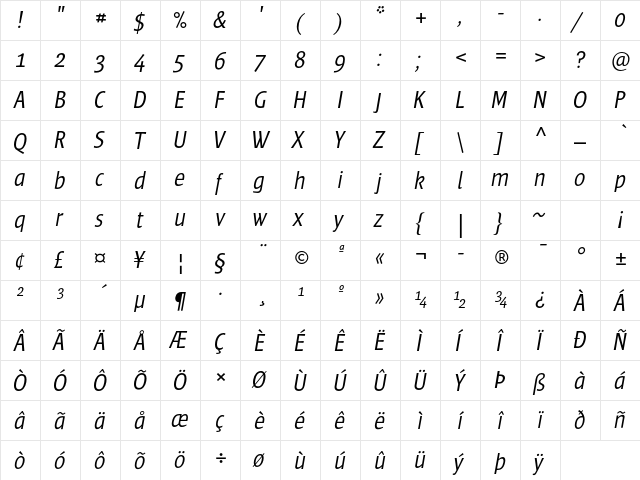
Frisans Std Light Italic
| Designer | Bo Berndal |
Design Context for Frisans Std Typeface
Frisans Std is a composed and adaptable typeface that performs quietly and consistently across a wide range of design contexts. The dynamic lean of this cut emphasises speed and emphasis in any layout. Its slender proportions lend an understated elegance to any composition.
Pro Tip: Try Frisans Std for annotation and caption copy alongside an upright companion — the contrast in angle creates a dynamic but ordered typographic system.